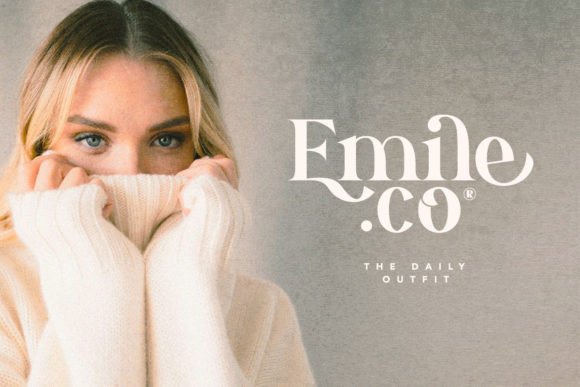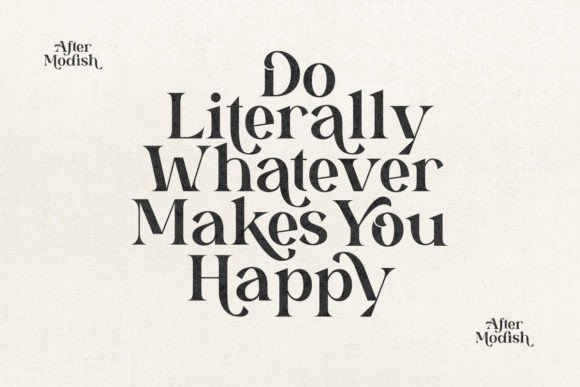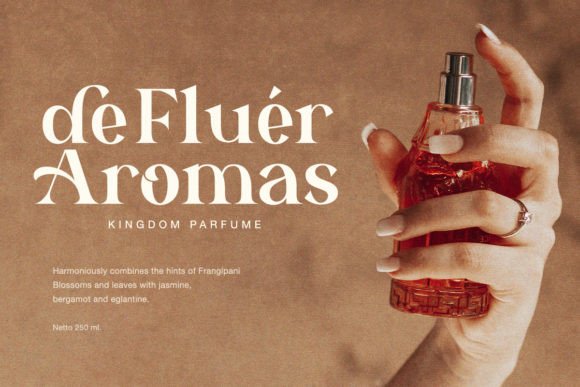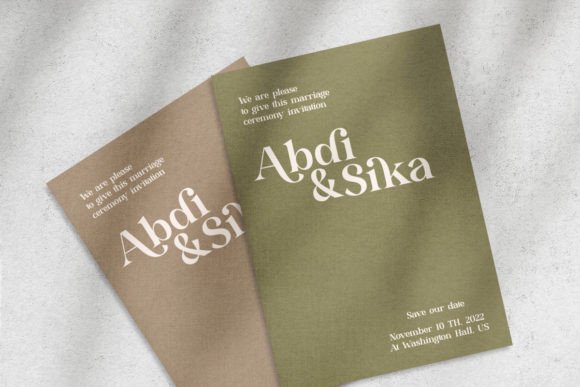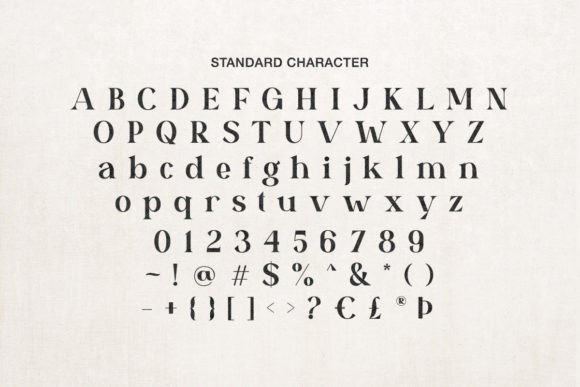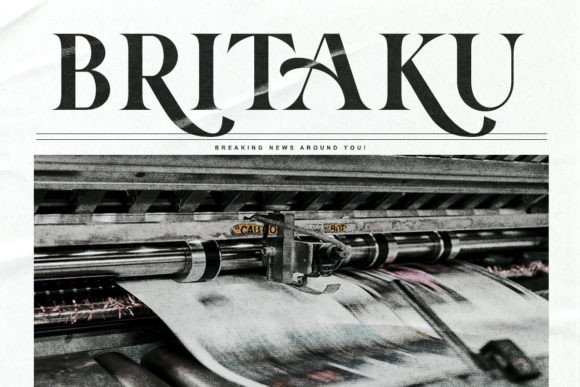
Introducing After Modish Font: Elevate Your Designs with Modern Bold Serif
In the world of typography, a font can make or break a design. For designers and crafters looking for a modern and stylish touch, After Modish Font is an excellent choice. This modern bold serif font comes with a plethora of stylish ligatures and alternates, making it perfect for a wide range of design projects.
What Makes After Modish Font Stand Out?
After Modish Font boasts a unique blend of classic serif elements with a modern twist. Its bold and striking appearance makes it ideal for designs that require a touch of sophistication and elegance. The font’s versatility allows it to be used for various purposes, including branding, quotes, wedding invitations, and more.
Key Features of After Modish Font
- Stylish Ligatures and Alternates: After Modish Font comes with a bunch of stylish ligatures and alternates, allowing designers to add a creative spin to their work.
- Multi-Language Support: The font supports multiple languages, making it a great choice for designers working on international projects.
- High Versatility: After Modish Font can be used for a wide range of design projects, from branding and advertising to wedding invitations and quotes.
After Modish Font is a dream come true for designers and crafters looking to elevate their work. With its modern bold serif design and extensive range of alternates, designers can:
- Create stunning brand identities that stand out from the crowd.
- Design beautiful wedding invitations that leave a lasting impression.
- Develop eye-catching quotes that grab attention.
Tips for Using After Modish Font
To get the most out of After Modish Font, here are some tips:
- Experiment with Alternates: Don’t be afraid to try out different alternates to find the perfect fit for your design.
- Pair with Complementary Fonts: Pair After Modish Font with complementary fonts to create a harmonious and visually appealing design.
- Play with Ligatures: Use ligatures to add a touch of elegance and sophistication to your design.
| Font Name | After Modish Font |
| Author | baletype |
After Modish Font is a powerful tool for designers and crafters looking to elevate their work. With its modern bold serif design, extensive range of alternates, and multi-language support, this font is perfect for a wide range of design projects. Whether you’re working on branding, wedding invitations, or quotes, After Modish Font is sure to make your designs stand out.